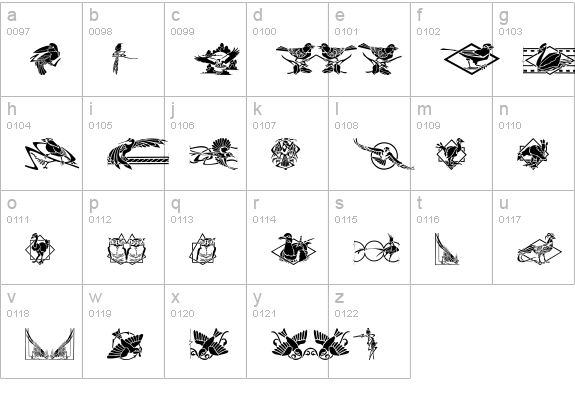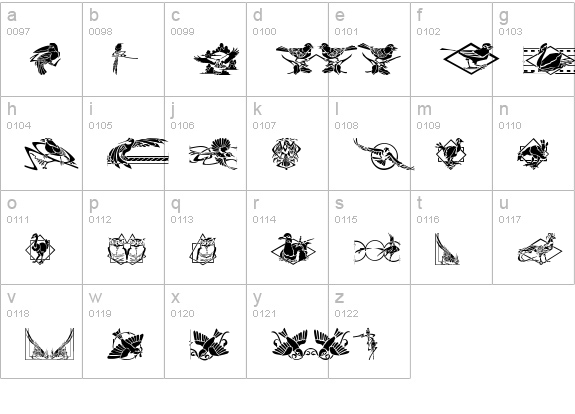
The Bird Stencil Design II font is a charming and whimsical typeface that captures the essence of nature and freedom. Its intricate bird motif adds a touch of playfulness to any design, making it perfect for projects that need a touch of creativity and uniqueness. This font is not only visually appealing but also versatile, suitable for a wide range of design applications such as posters, invitations, packaging, and more. The stenciled design adds a modern twist to the classic bird theme, giving it a contemporary and trendy look. Best of all, this font is available for free download at FontsMarket.com, making it easily accessible for designers and creatives looking to add a touch of nature-inspired flair to their projects. Don't miss out on this delightful and unique font that will surely make your designs stand out!